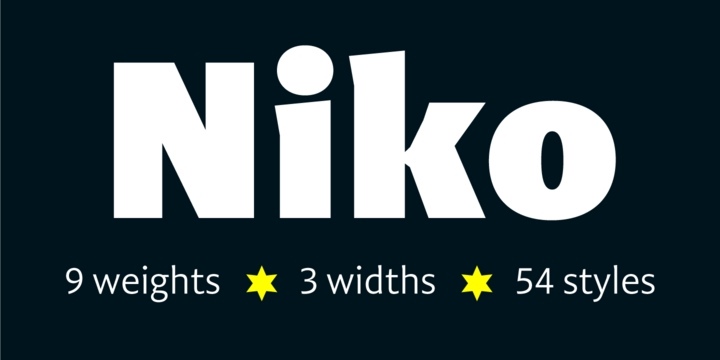
Niko Font
Niko Font is perfect for friendly brand identities, approachable service companies, welcoming restaurant menus, casual lifestyle campaigns, community organization materials, cheerful social media graphics, personable business communications, and warm hospitality branding.
What makes Niko Font exciting is its genuinely warm character that instantly creates friendly connections through approachable letterforms that feel like a smile from a trusted friend. The font features rounded, comfortable shapes with an inherently welcoming personality that makes every message feel personal and inviting, embodying the kind of authentic friendliness that builds lasting relationships. Its naturally engaging design philosophy and personable appeal make it perfect for brands that want to communicate warmth, accessibility, and the genuine human connection that transforms customers into friends while creating memorable experiences that feel like coming home to familiar faces.
Niko Font family includes various friendly weights such as Light, Regular, Medium, and Bold variations, often featuring personable stylistic alternates and welcoming decorative elements. The family may include cheerful symbols, community-focused ornaments, and friendly ligatures that enhance the font's approachable aesthetic, providing designers with comprehensive options for creating engaging typographic compositions that foster genuine human connection and comfortable communication.
This warmly personable typeface has gained popularity among community-focused brands and people-centered businesses seeking authentic friendly typography solutions that reflect genuine care and personal attention. Niko Font Free Download provides an excellent opportunity to befriend this welcoming font before investment. The font's character set includes friendly symbols and community-inspired glyphs that work perfectly for hospitality and personal service industry applications. Whether you're designing for local businesses, community centers, or personable lifestyle brands, Niko Font delivers the warm friendliness your project requires. Its versatile nature makes it suitable for various welcoming applications including neighborhood cafes, family services, friendly healthcare providers, and approachable lifestyle companies, ensuring your typography choices communicate genuine warmth and personal connection while creating memorable brand experiences that make people feel valued and welcome through its distinctively friendly and authentically personable visual character.